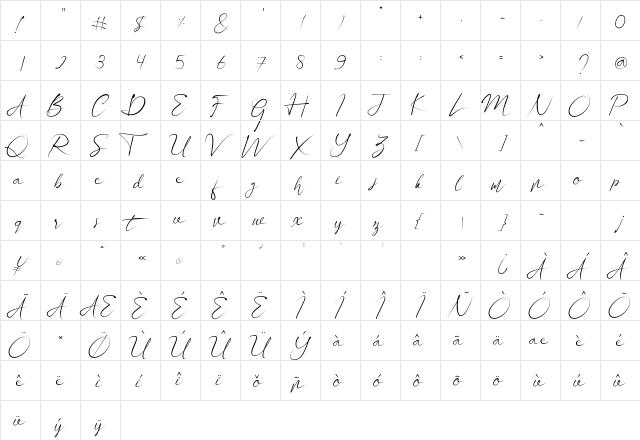
Sinatra Regular
| Designer | Fahmi |
Design Context for Sinatra Typeface
Sinatra takes a measured approach to typography — its balanced proportions and neutral character make it a reliable workhorse for both digital and print work.